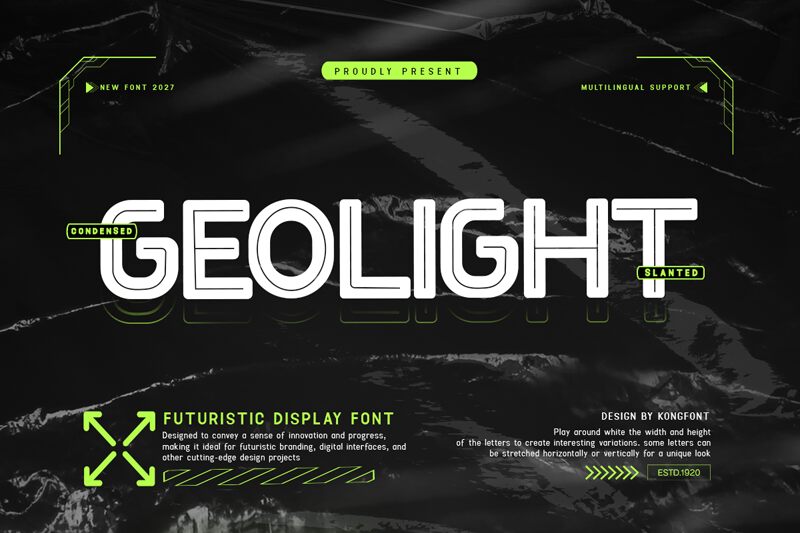
Geolight font by Kong Font is a free, futuristic, techno design available for personal use. With sleek shapes and geometric elements, this font fits the visual needs of various contemporary projects involving digital technology and forward-thinking approaches. It is a fresh take with a modern look that fits the digital world requirements like a glove.
Use Geolight in your personal projects where a fresh, modern look is a good direction. Go with smart applications like posters and flyers for innovation companies and conferences and readings. Other suggested uses include book cover designs, logos, websites, corporate identity packages, banners, app interfaces, digital platforms, and more.